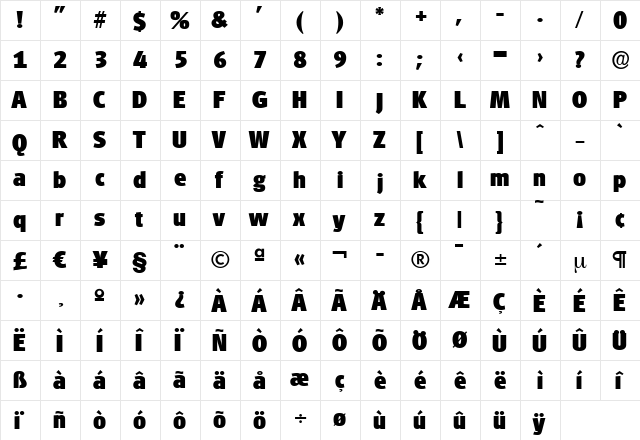
RichardBecker-Heavy Regular Font Preview
RichardBecker-Heavy Regular
Design Context for RichardBecker-Heavy Typeface
RichardBecker-Heavy offers clean, dependable letterforms without strong stylistic allegiance, making it a practical choice for designers who need flexibility.